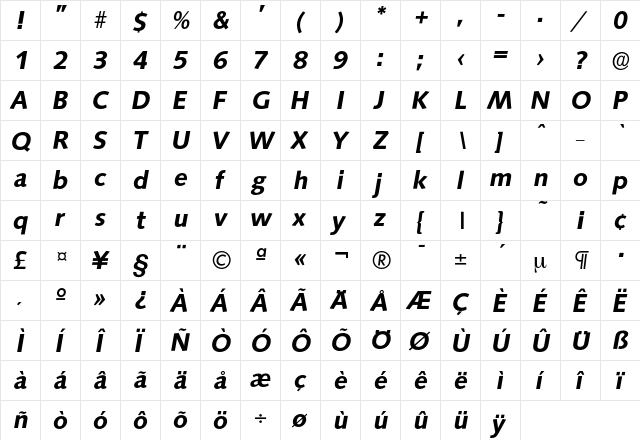
Saxony-DemiBoldIta Regular Font Preview
Saxony-DemiBoldIta Regular
Design Context for Saxony-DemiBoldIta Typeface
Saxony-DemiBoldIta takes a measured approach to typography — its balanced proportions and neutral character make it a reliable workhorse for both digital and print work. The heavy weight commands attention and anchors typographic hierarchies.